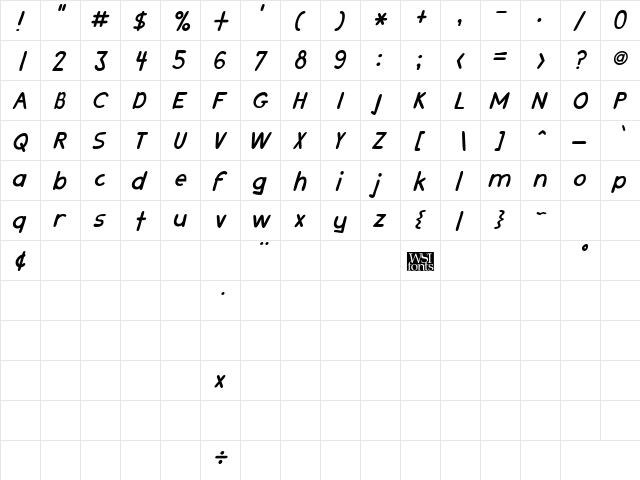
Muse Bold Italic
Design Context for Muse Typeface
Muse offers clean, dependable letterforms without strong stylistic allegiance, making it a practical choice for designers who need flexibility. Its italic angle brings a sense of urgency and motion to the letterforms. The heavy weight commands attention and anchors typographic hierarchies.